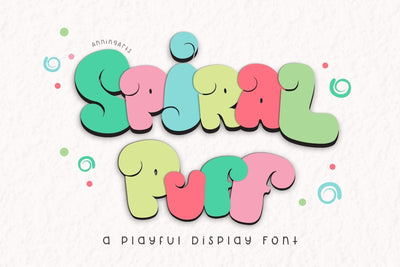
Spiral Puff - Display Font
Spiral Puff is a playful display font. This font is a twist on a bold font decorated with cute, chunky spirals to suit any design you want. Perfect for creating a variety of new designs to match products such as banners, content, mugs, cards, shirts, stationery, and social media posts. and many more!